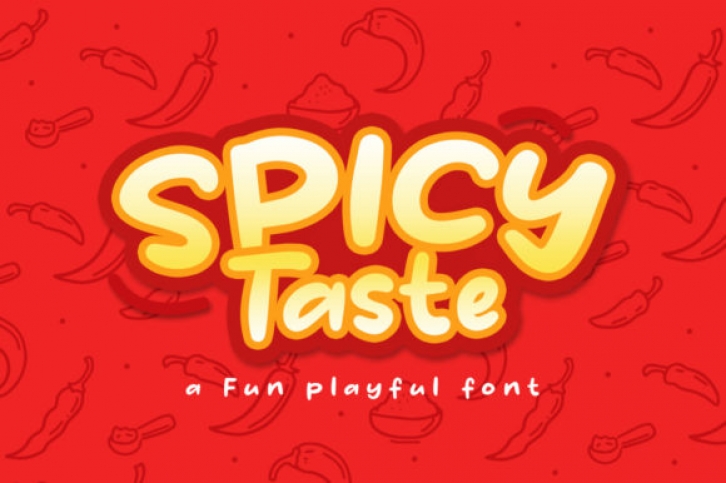
Spicy Taste is a fun, retro styled and cool display font. Whether you use it for cartoon related designs, children games or just any creation that requires a lovely touch, this font will be an amazing choice.